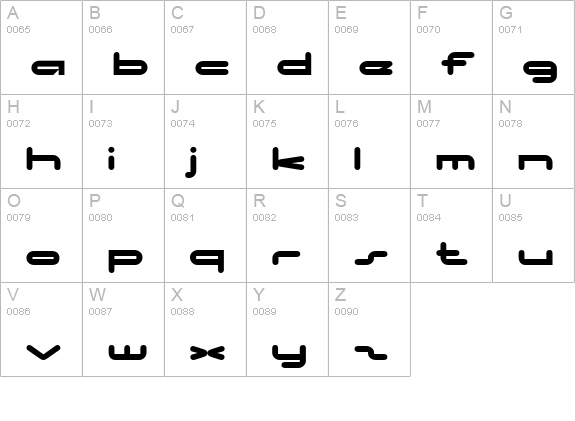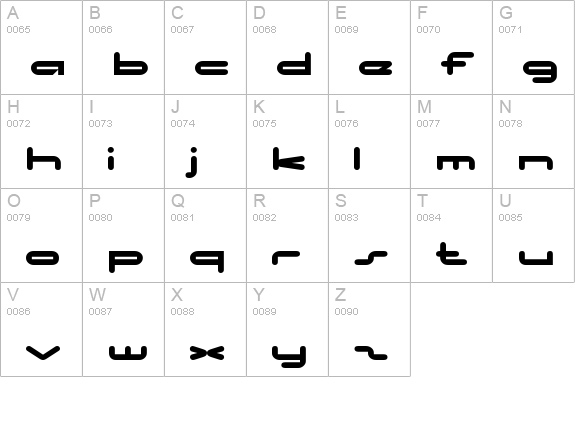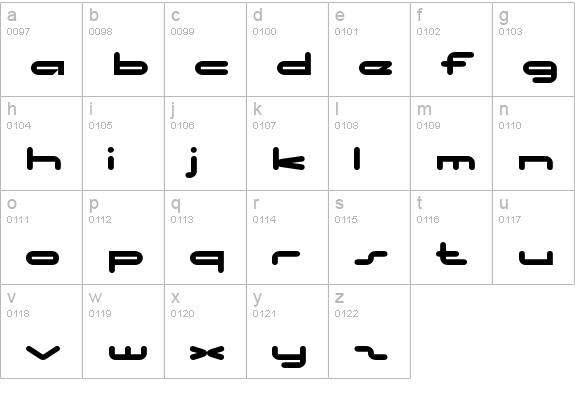
No Clocks Font Details
No Clocks font is a modern and stylish typeface that exudes sophistication and elegance. Its sleek lines and unique design make it perfect for a wide range of design projects, from logos to posters to branding materials. With its clean and crisp appearance, No Clocks font is sure to make a statement and leave a lasting impression on your audience. What sets No Clocks font apart is not only its stunning visual appeal, but also the fact that it is completely free to download. That's right, you can get your hands on this beautiful typeface at no cost at FontsMarket.com. Whether you're a professional designer looking to add a fresh font to your collection or a hobbyist seeking to elevate your projects, No Clocks font is the perfect choice. Don't miss out on the opportunity to enhance your designs with the elegance and sophistication of No Clocks font. Download it for free today at FontsMarket.com and take your creations to the next level.